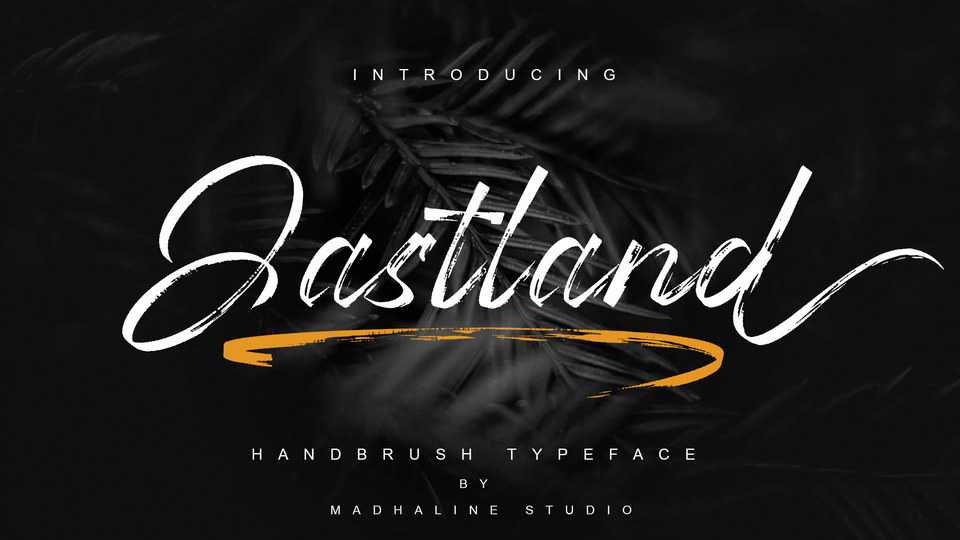
Download Jastland font, a rustic, dapper handwritten brush typeface with a personal charm. With quick dry strokes and a unique style, Jastland is perfect for branding projects, homeware designs, product packaging – or simply as a stylish text overlay to any background image.
Designer: MadhalineStudio